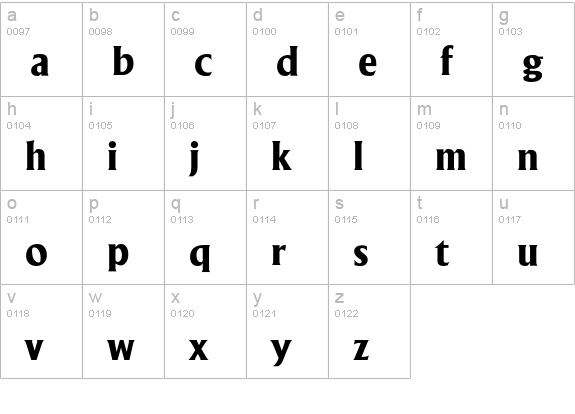
Adelon-Bold Font Details
Adelon-Bold is a strong, high-contrast variant in the Adelon typeface family \xE2\x80\x94 well suited to headlines, attention-grabbing titles, and strong calls-to-action.
Adelon-Bold is a striking and versatile font that exudes a sense of modernity and sophistication. With its bold and clean lines, this typeface commands attention and makes a bold statement in any design project. The strong and confident look of Adelon-Bold is perfect for headlines, titles, and branding materials. What sets Adelon-Bold apart is not just its visual appeal, but also its accessibility. This font is available for free download at FontsMarket.com, making it a valuable resource for designers, creatives, and anyone looking to elevate their projects with a touch of elegance and style. Whether you're working on a website, a poster, a logo, or any other design endeavor, Adelon-Bold is sure to make a lasting impression. Download this font today and unleash its bold potential in your next creative venture.